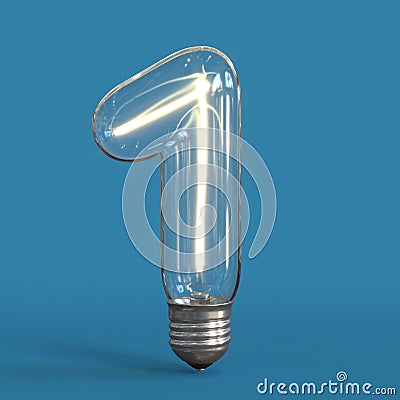
Light Bulb 3d Font 3d Rendering Number 1 Royalty-Free Illustration
Light bulb 3d font 3d rendering number 1, three-dimensional object isolated illustration